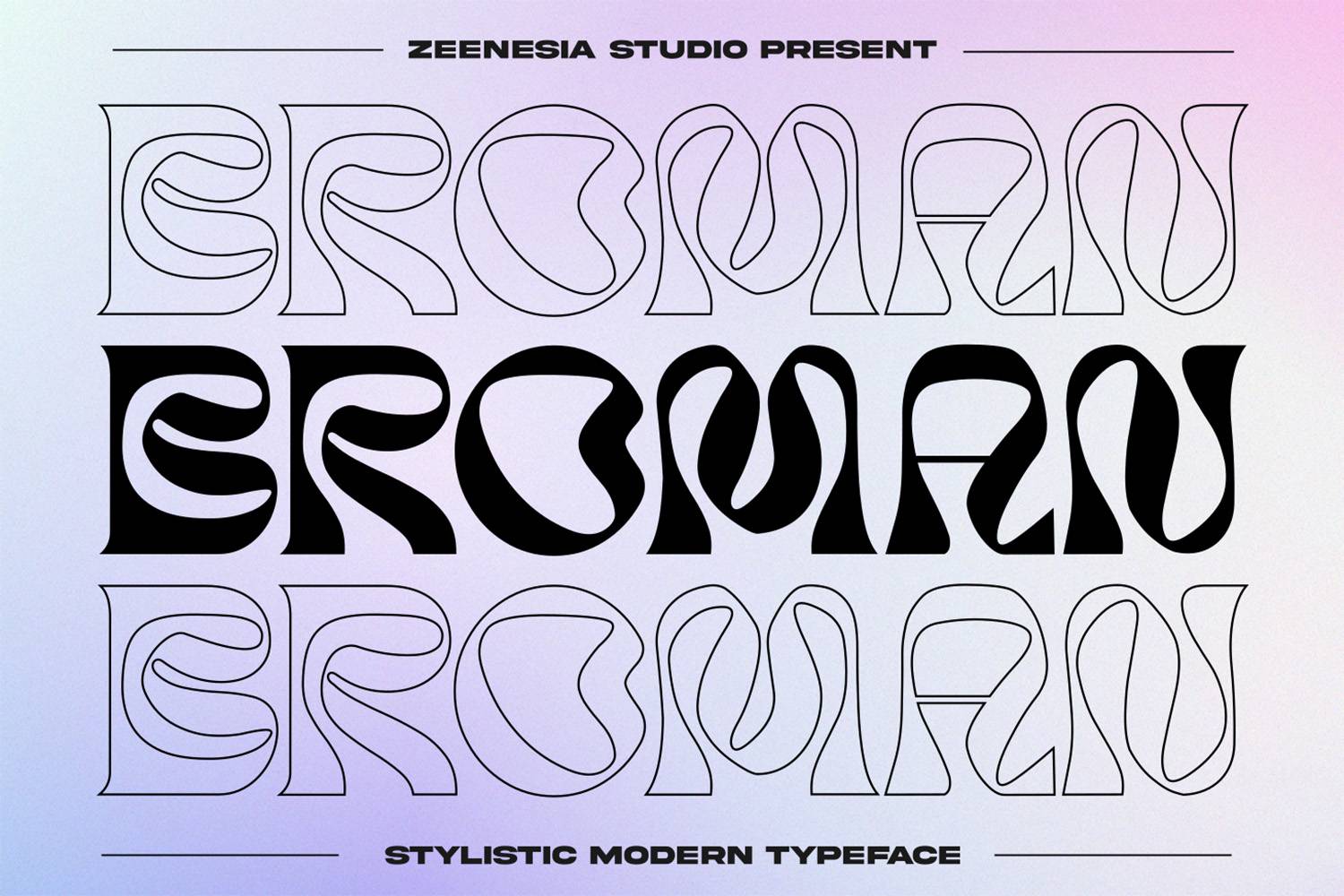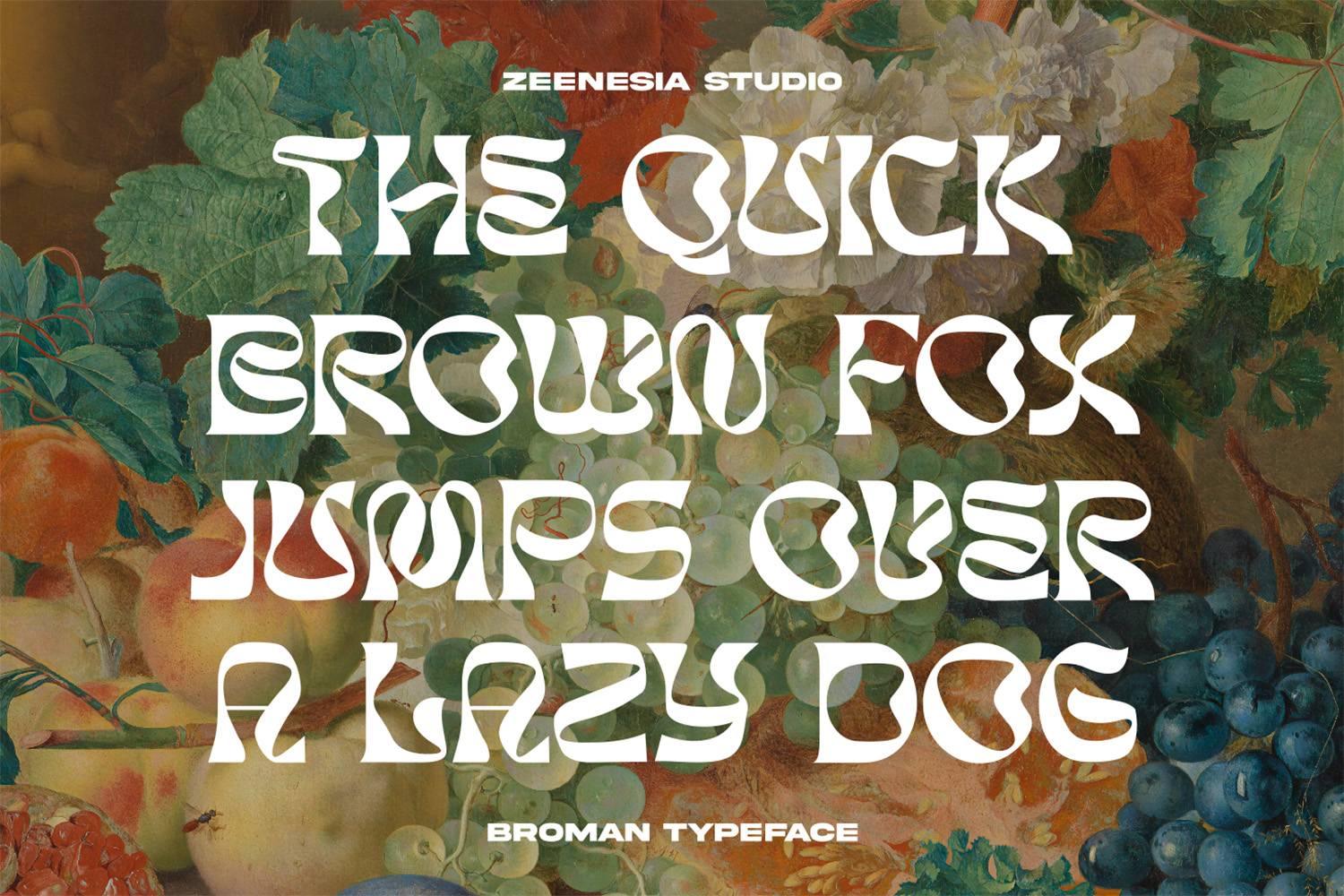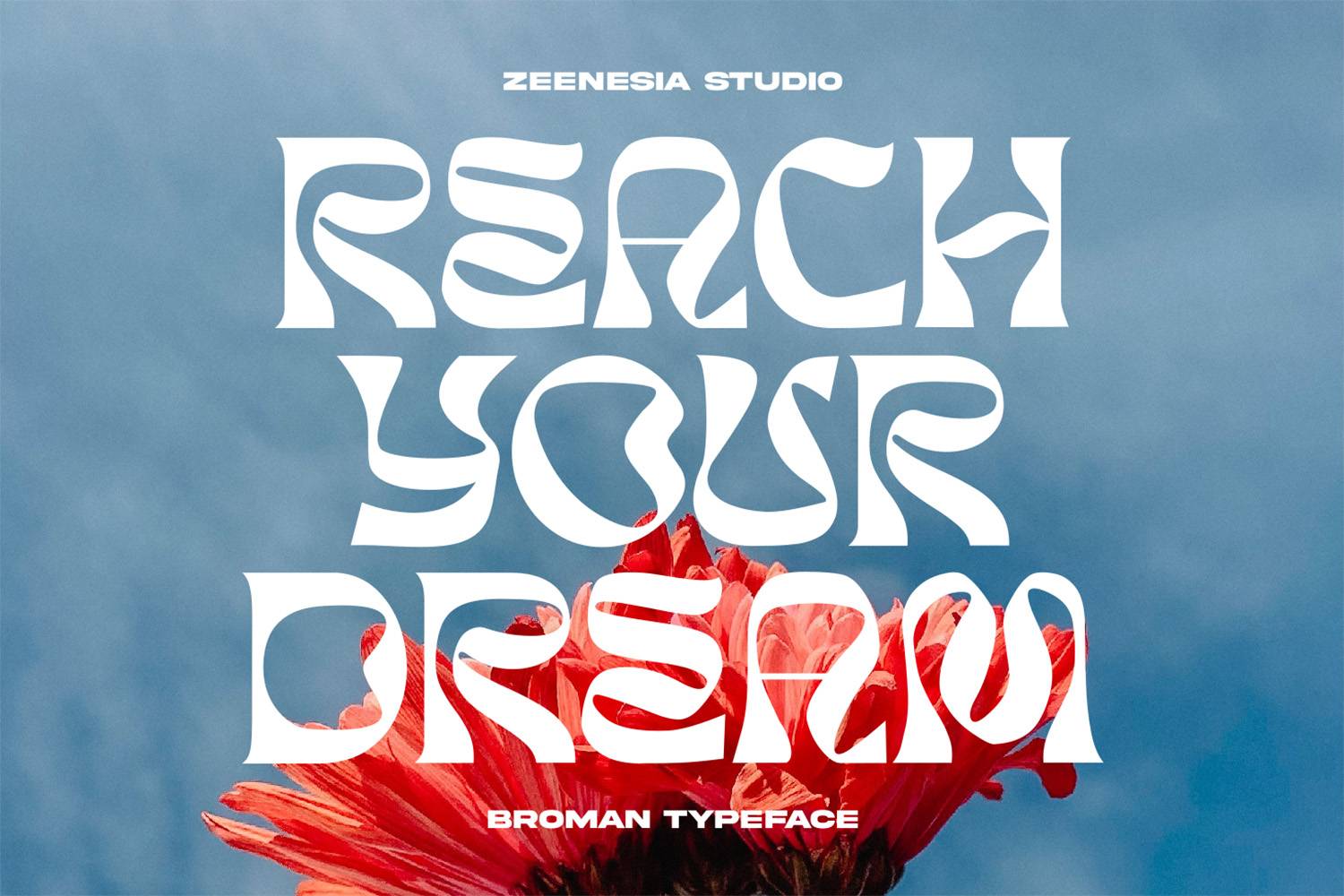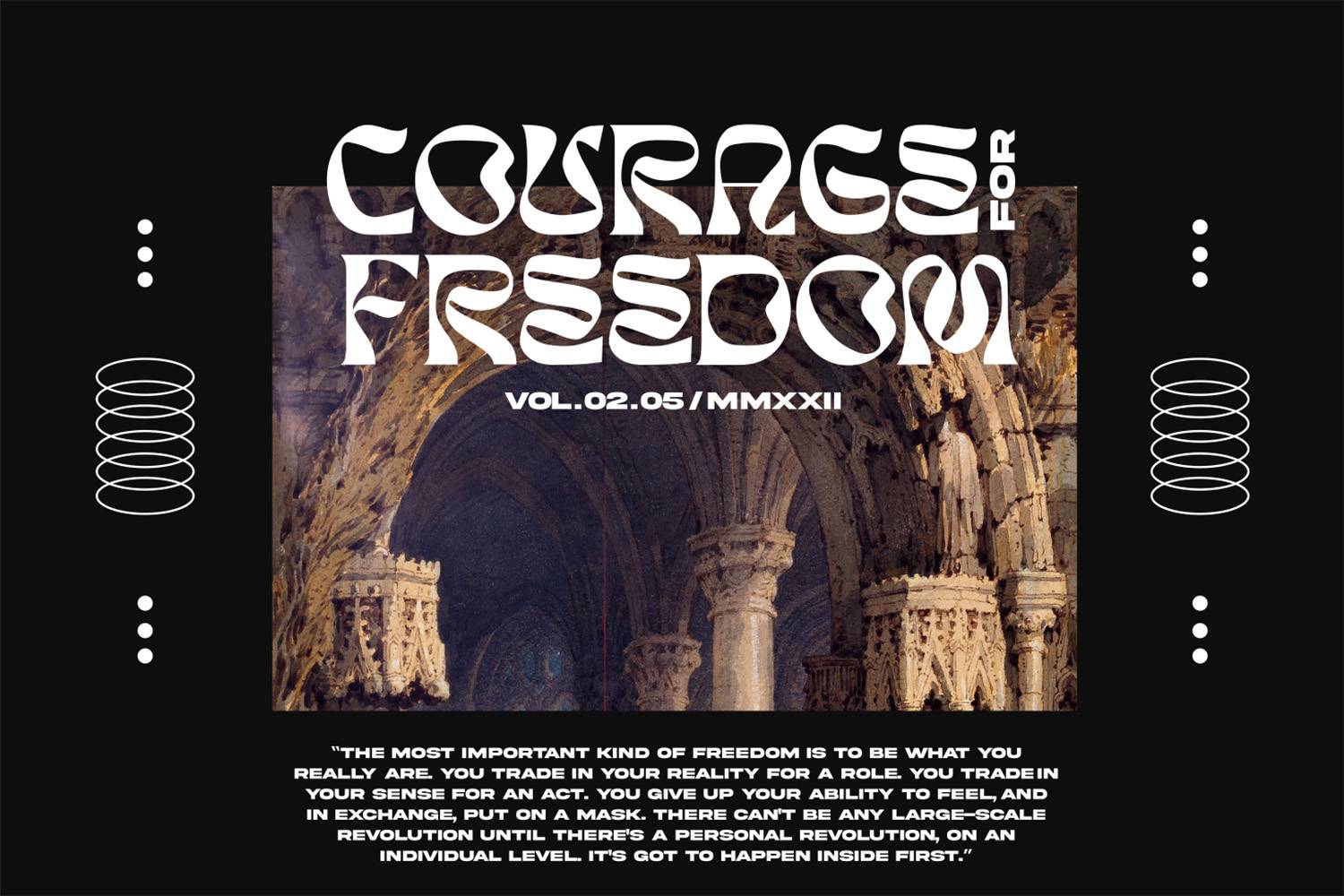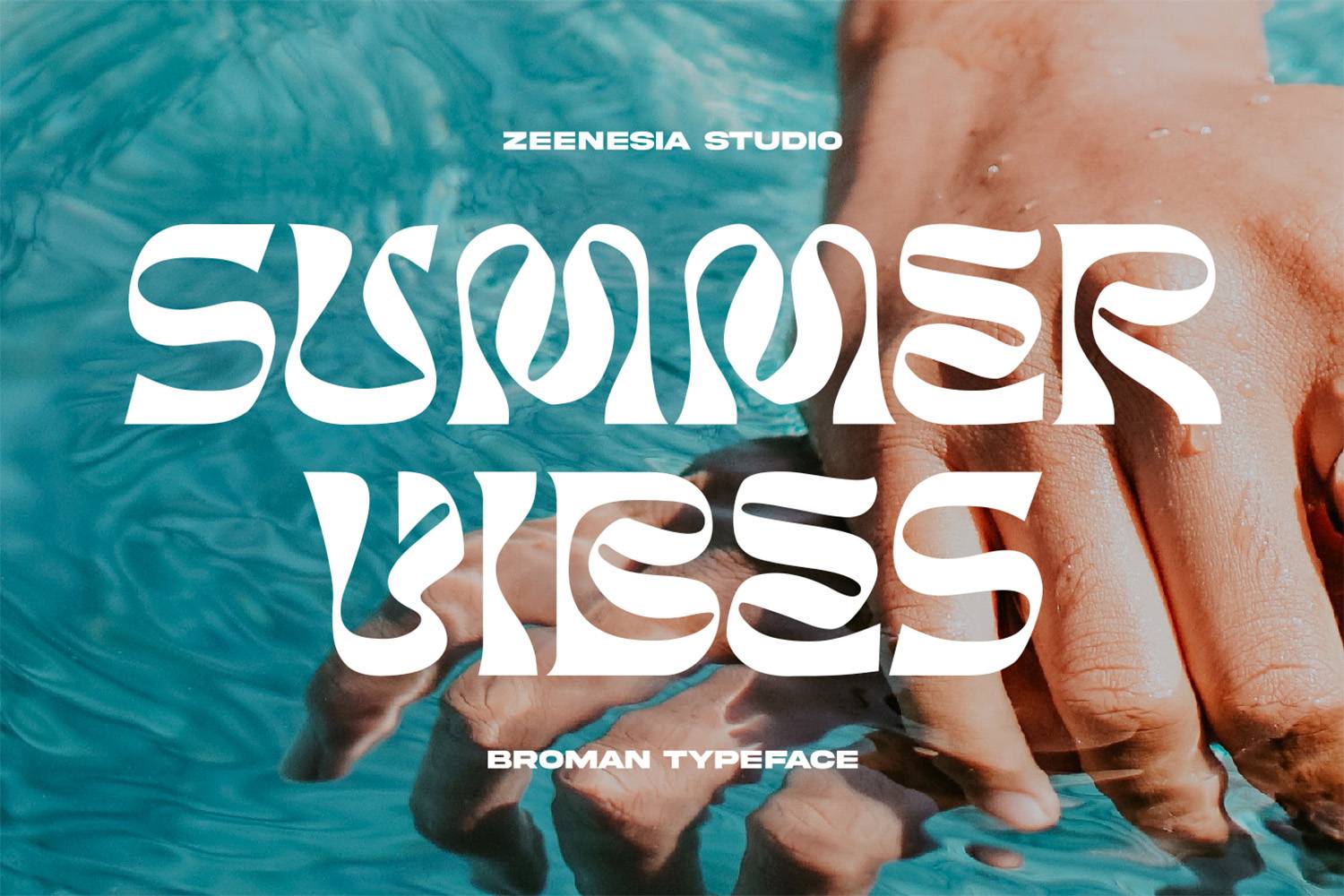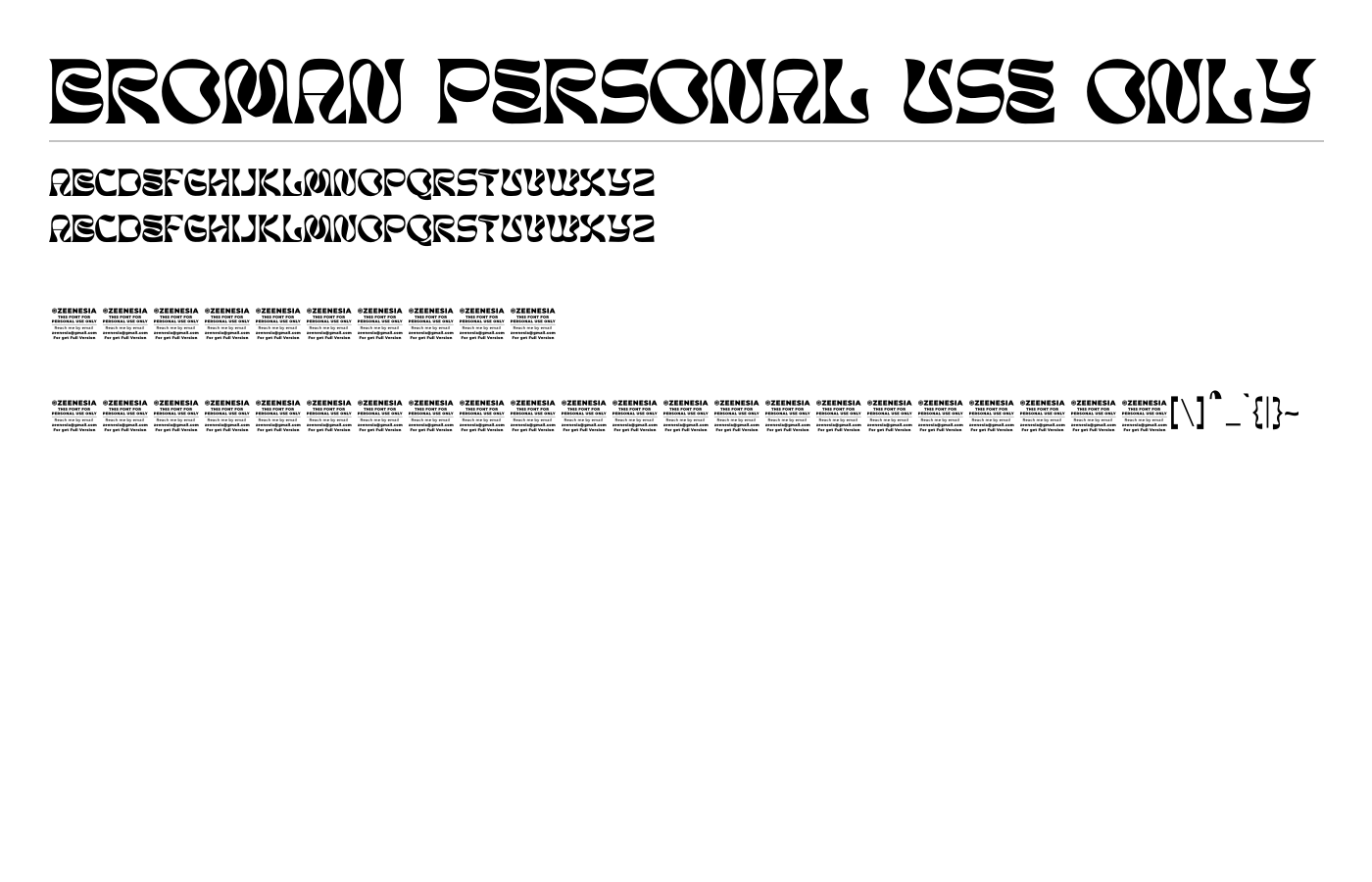
Broman is a bold, decorative display font with a unique blend of geometric and organic shapes that give it a quirky, artistic vibe. Its heavy weight and high contrast strokes create a strong, eye-catching presence, making it ideal for striking headlines, logos, and creative projects that want to stand out with a playful yet distinctive personality. This font works well for brands and designs aiming for originality and a modern, unconventional style.
Broman Font
About Broman Font